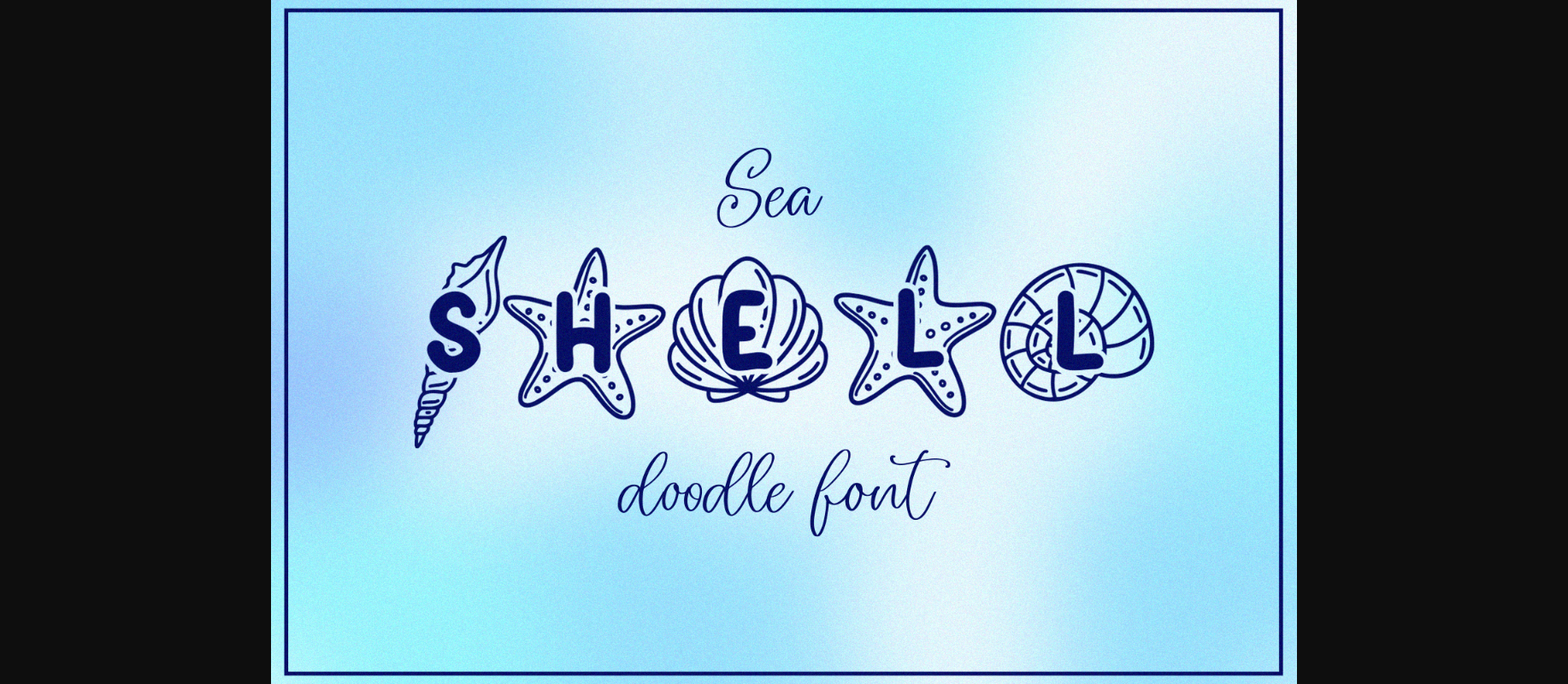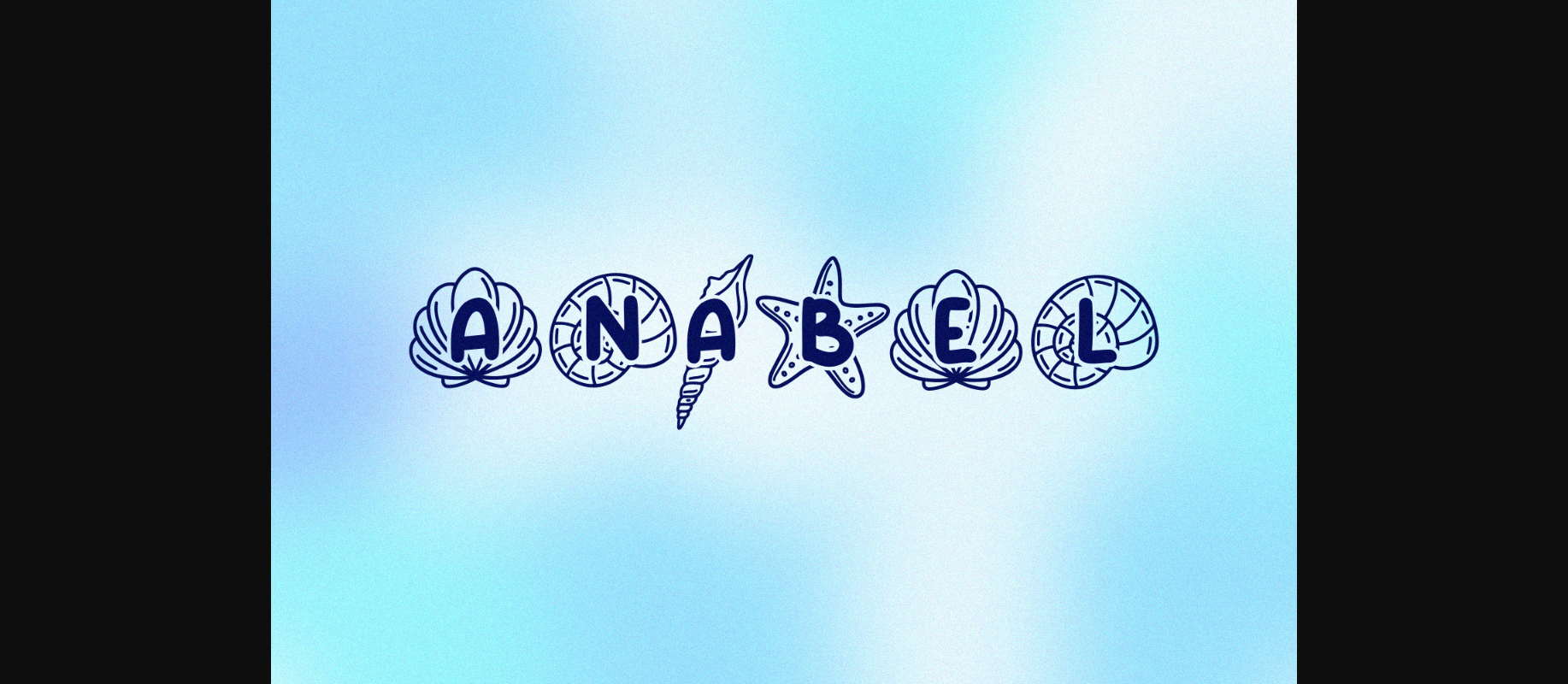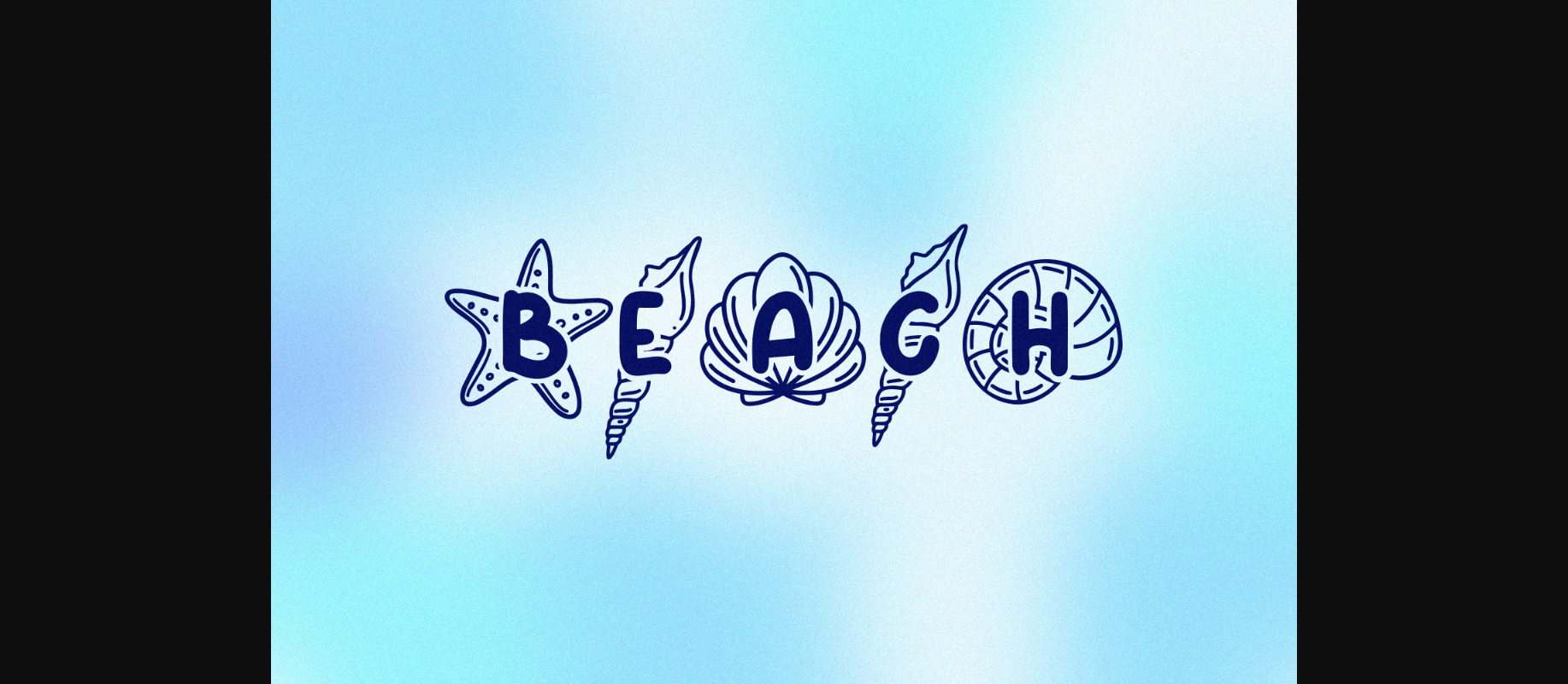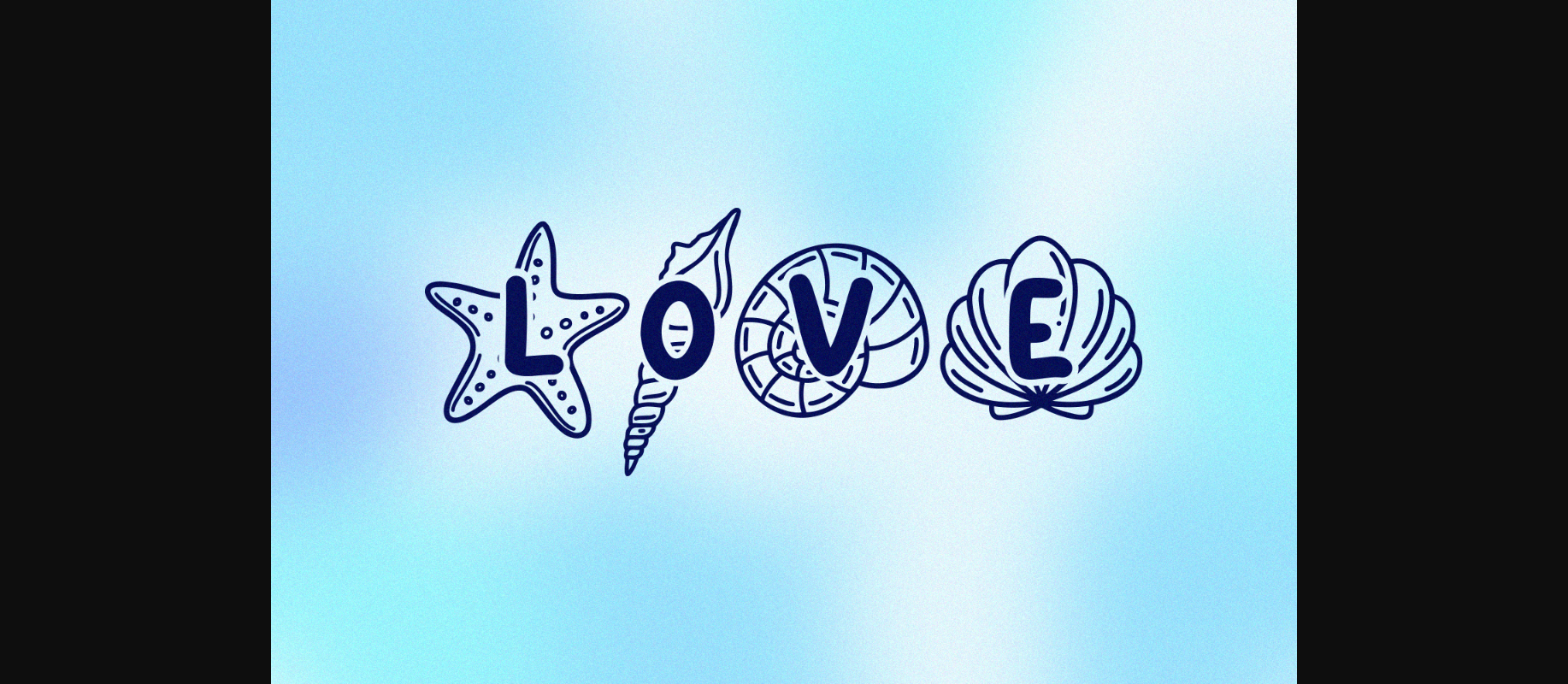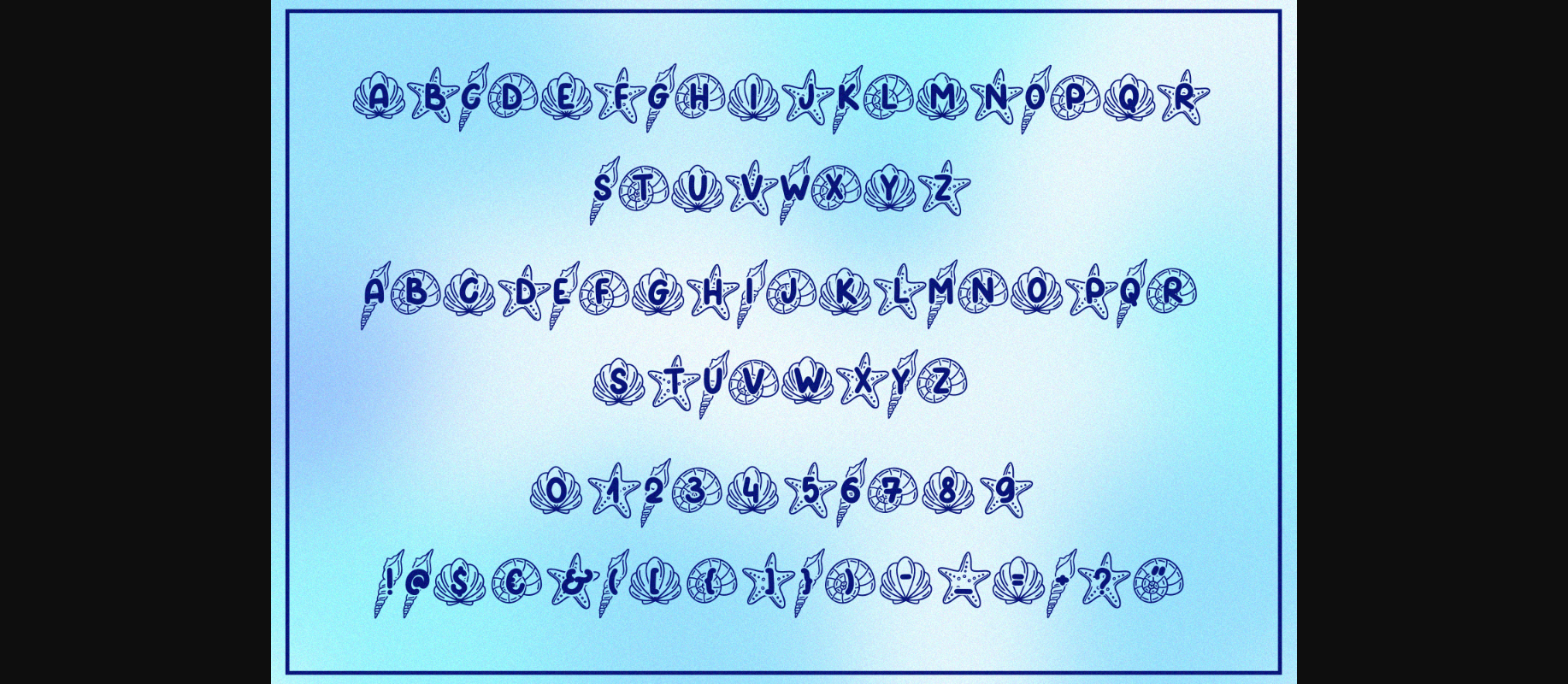
Seashell Font
About Seashell Font
SeaShell Doodle Font is a delightful and charming typeface that captures the essence of a fun-filled summer by the seashore. Each letter is beautifully decorated with seashells. This cute and cheerful font is perfect for adding a touch of seaside magic to your designs. Whether you’re creating beach-themed party invitations, vacation scrapbooks, or anything related to summer, SeaShell Doodle Font will bring a sense of joy and nostalgia. Let this font transport you to sandy shores and sunny days, spreading smiles wherever it’s used.